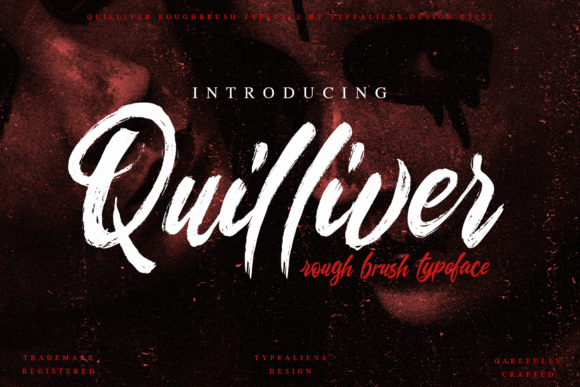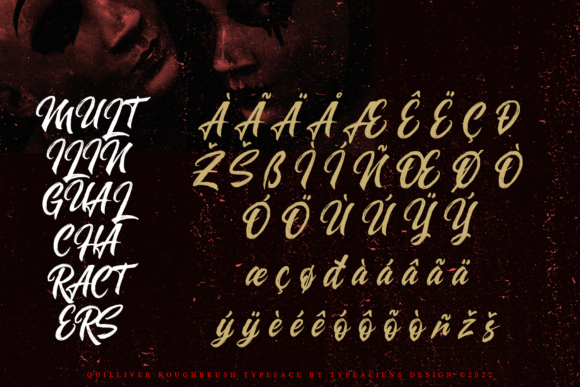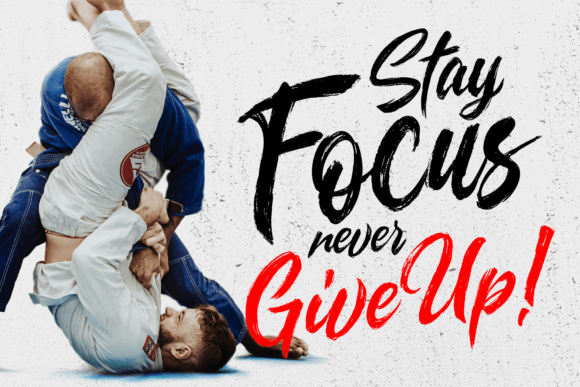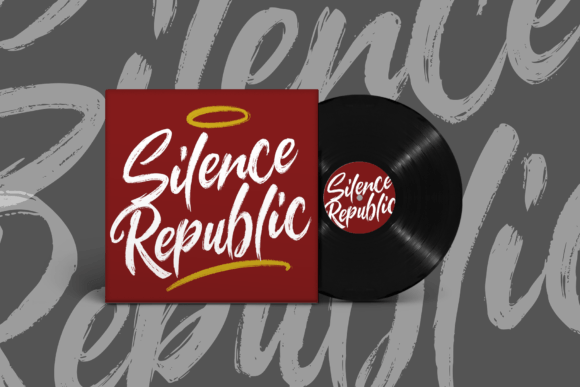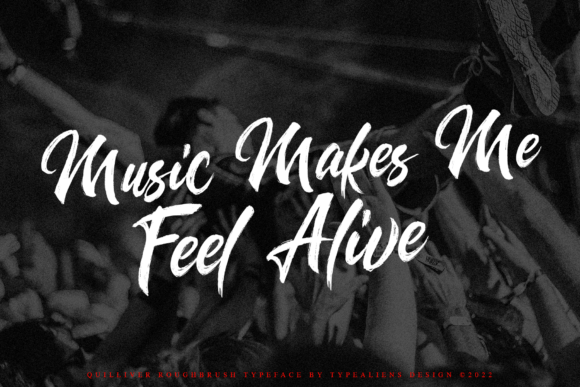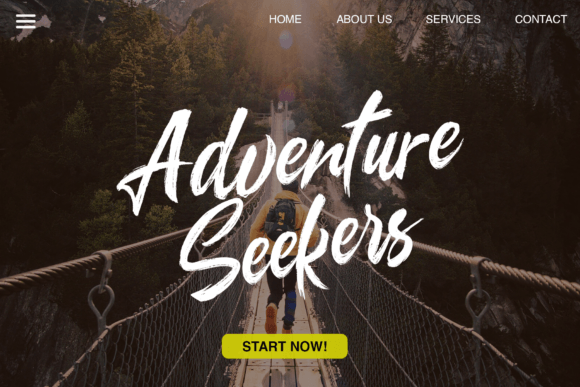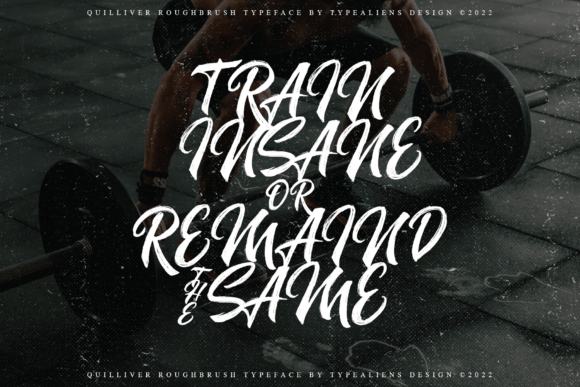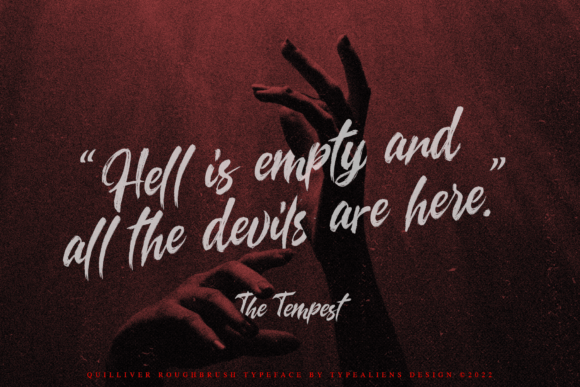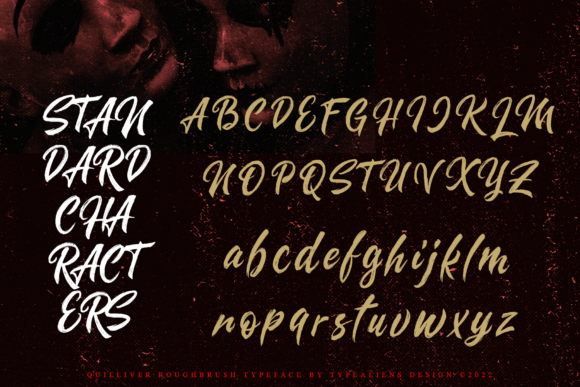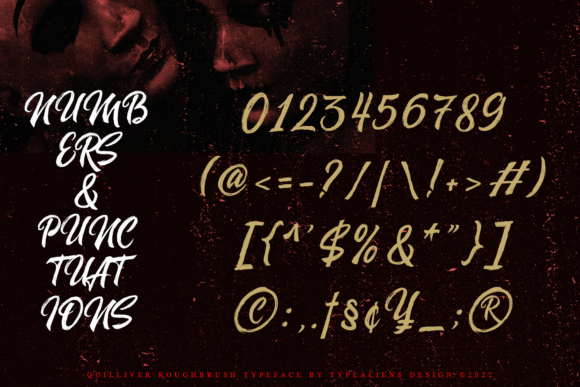
Quilliver Font
About Quilliver Font
“Quilliver” is a distinctive script font with a textured brush style, crafted to emulate the aesthetics of digital calligraphy. This font is particularly well-suited for modern designs, bringing a unique flair to various applications such as youth fashion, skateboard brands, quotes, and more. Its combination of script elements and texture brush gives it a dynamic and edgy appeal.
The textured brush quality of “Quilliver” sets it apart, providing a sense of authenticity and a handmade feel to your designs. The digital calligraphy foundation makes it versatile, allowing it to be applied to a range of projects without being limited to feminine designs. This flexibility is especially valuable for non-feminine and contemporary design contexts.
Imagine “Quilliver” making a bold statement in youth fashion branding, where its edgy and modern script adds a touch of urban style. Picture it on skateboard brand logos, capturing the energy and dynamism associated with the culture. Envision this font enhancing quotes and phrases, bringing a textured and expressive quality to the words.
The script font’s ability to balance both modern and non-feminine design elements makes it a valuable asset for designers seeking a versatile and impactful typeface. “Quilliver” is not just a font; it’s a creative tool that allows you to infuse your designs with a sense of character and individuality.
Whether you’re a graphic designer working on youth-oriented projects or someone looking to add a unique touch to contemporary designs, “Quilliver” invites you to explore its textured brush script. Let it be the element that elevates your designs, making them stand out and resonate with the dynamic energy of modern aesthetics.